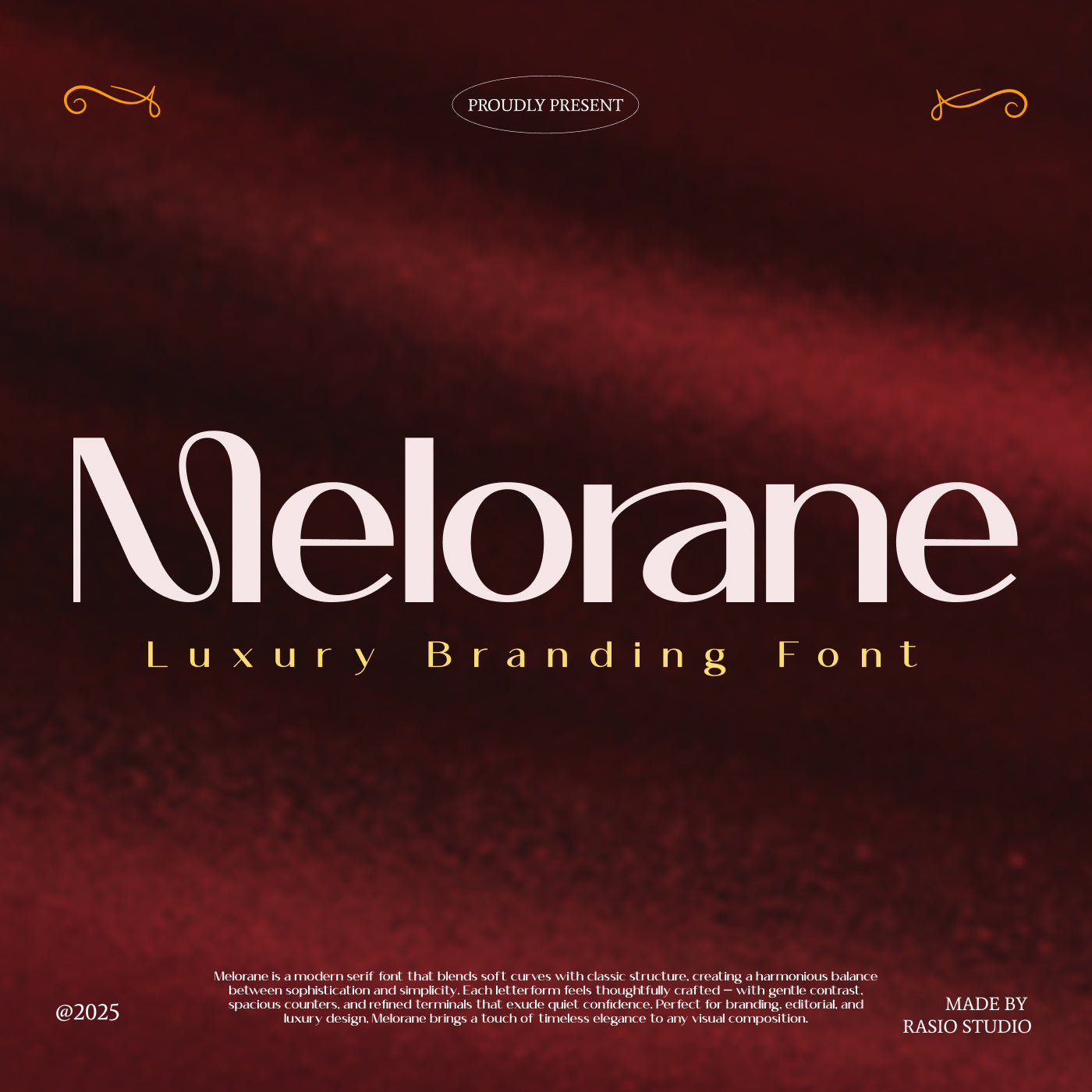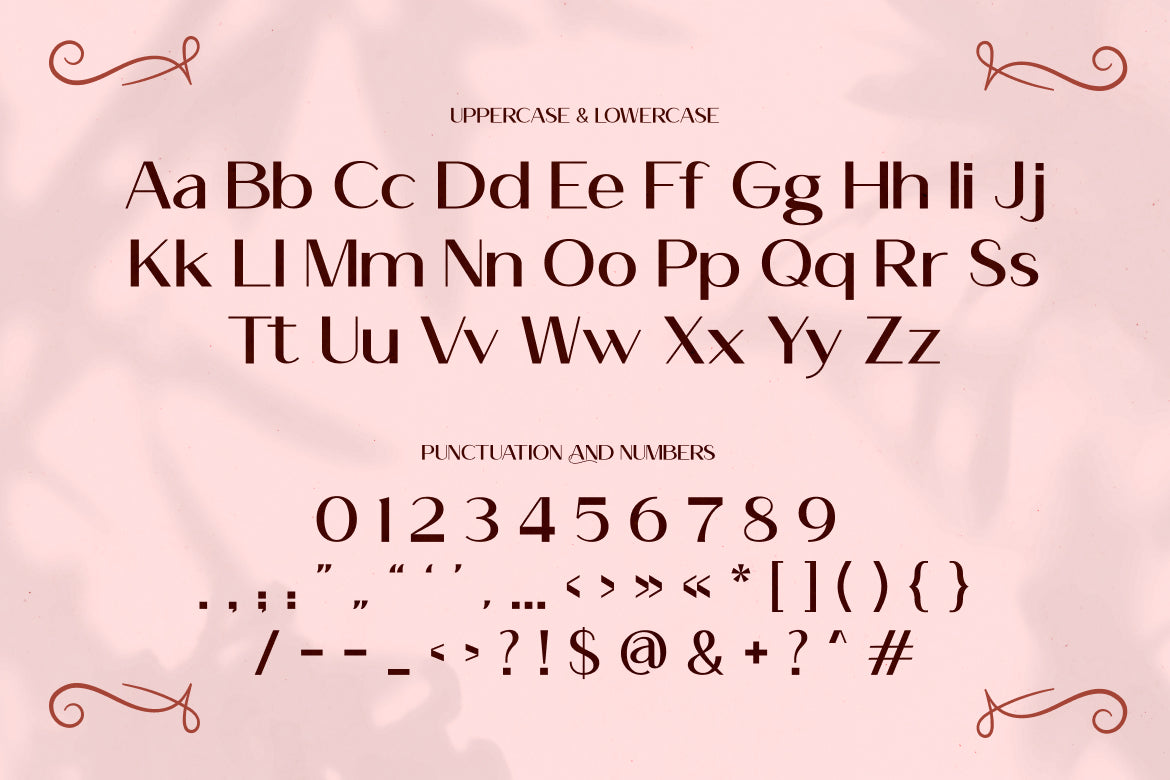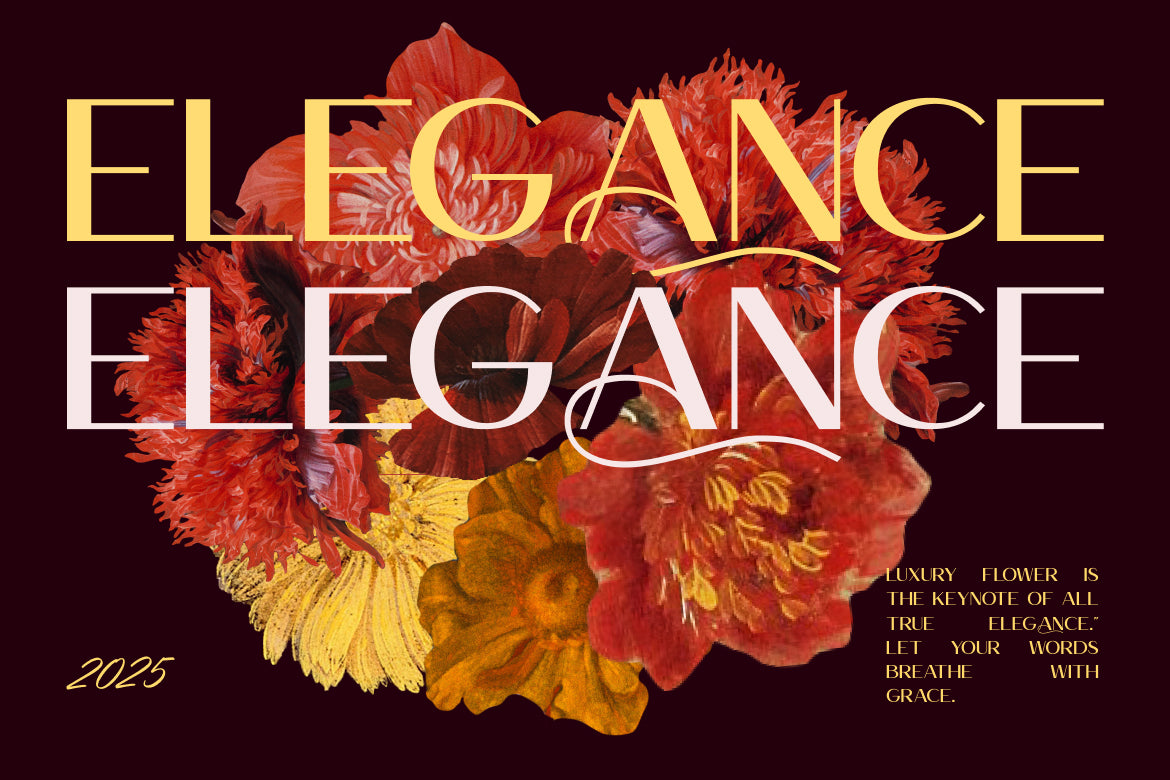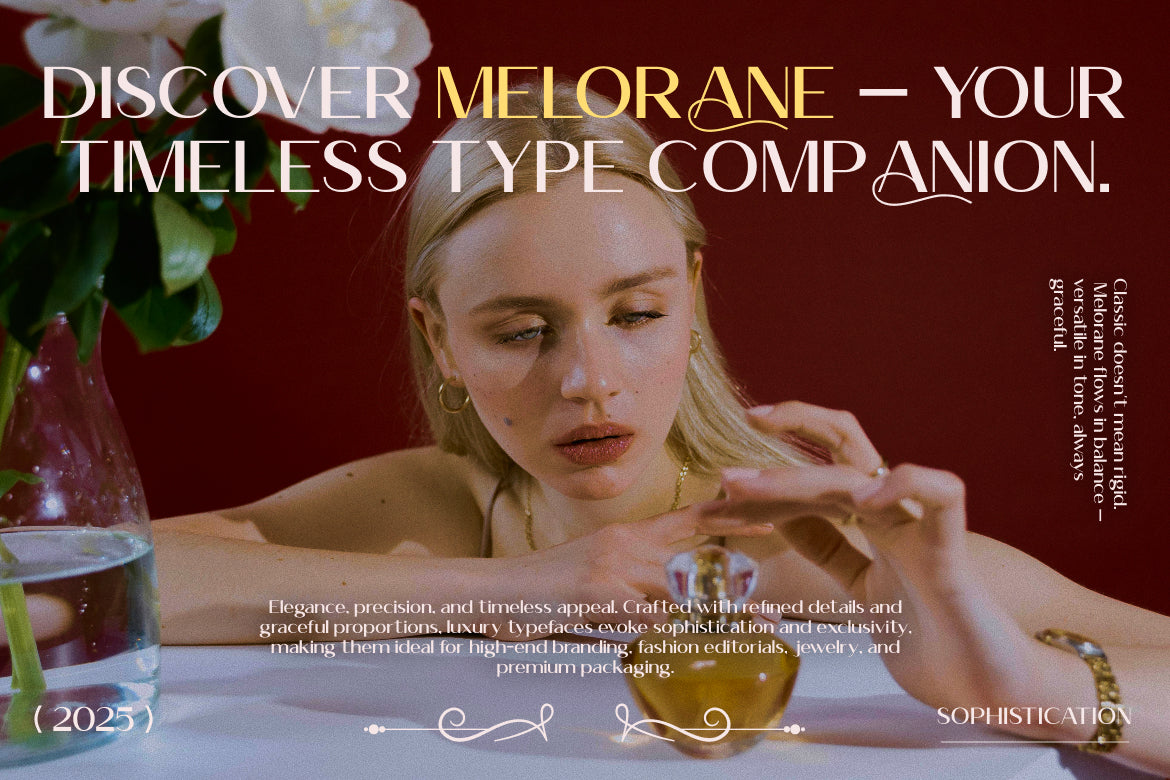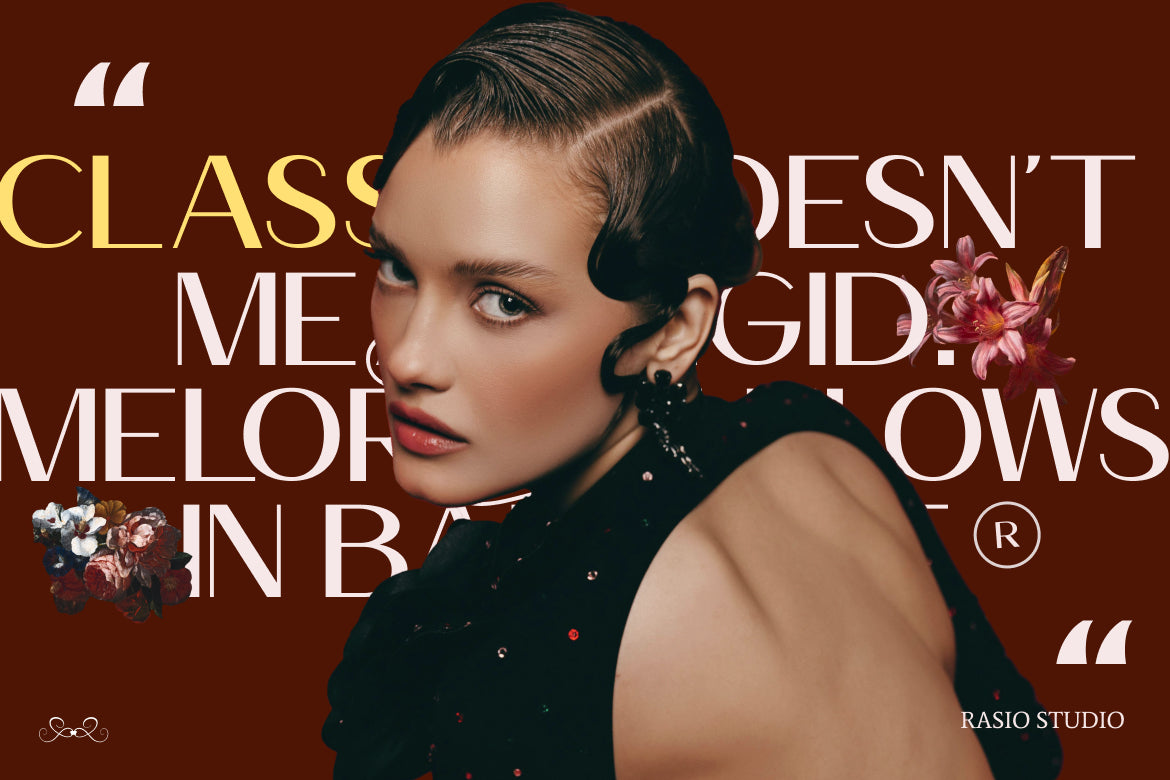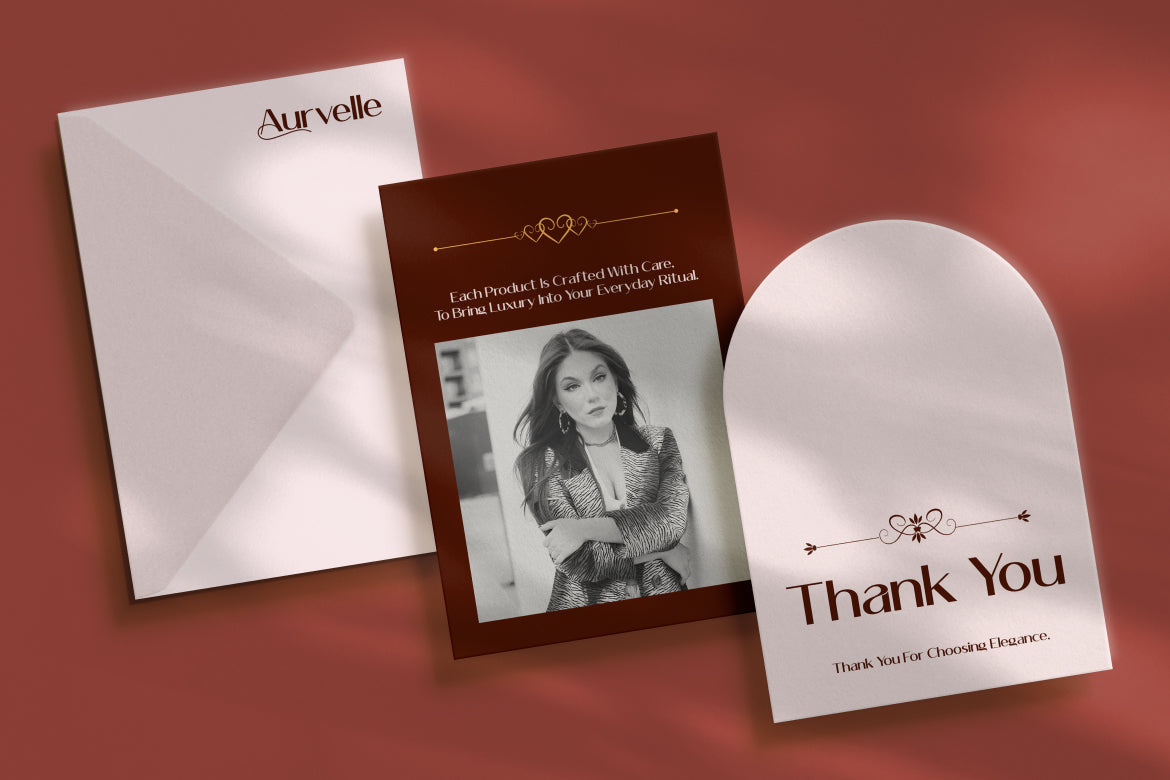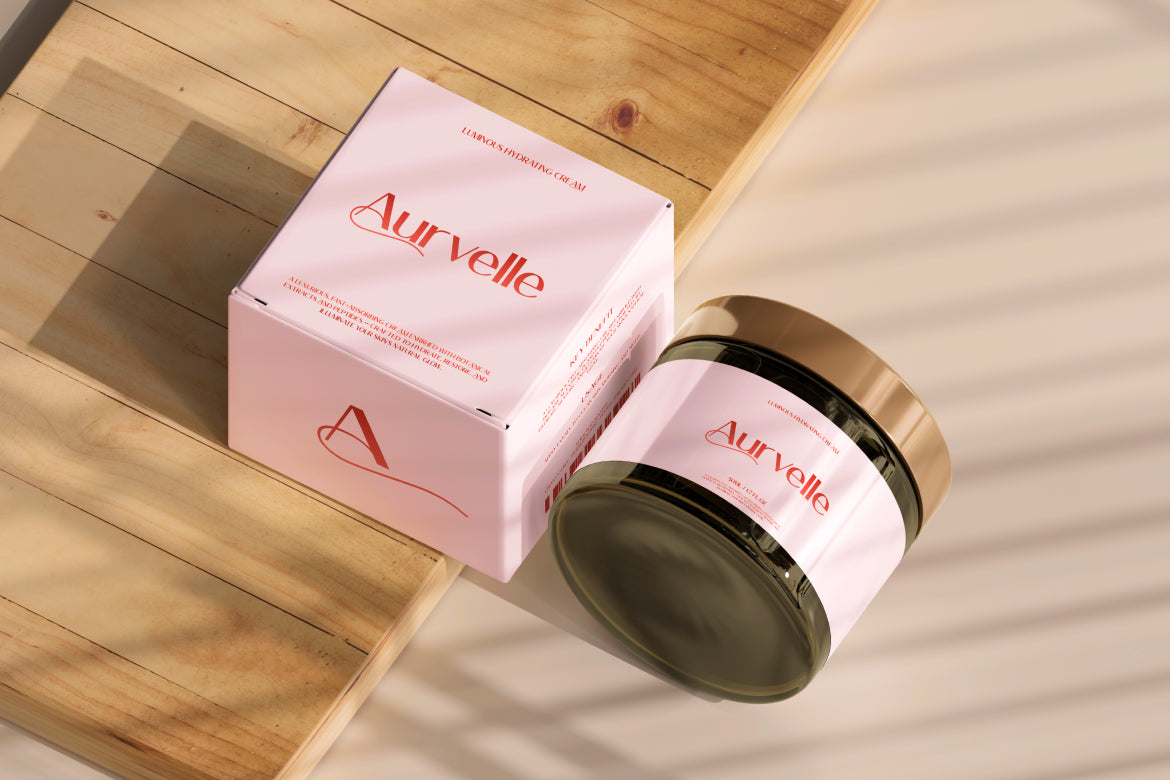
Melorane Luxury Branding Font
Melorane is a luxury sans serif font that merges timeless elegance with modern refinement. Featuring graceful curves, high contrast strokes, and distinctive ligatures, each letterform is designed to exude sophistication and confidence. This typeface blends classic proportions with contemporary flair, making it a perfect choice for high-end branding and editorial design. Ideal for luxury packaging, cosmetic branding, fashion campaigns, and elegant logos, Melorane brings a poetic balance of softness and structure. Its versatility shines in both large display text and refined body copy, offering a premium touch to any visual composition.
Melorane is perfect for elegant serif typography, premium branding, and timeless editorial visuals. It fits perfectly into high-end packaging, luxury skincare branding, fashion magazine layouts, and graceful wedding stationery. Its refined design also suits boutique logos, premium product labels, and signature brand identities. Melorane can be used in beauty campaigns, jewelry promotions, custom thank-you cards, and modern fashion lookbooks. Its delicate ligatures and contemporary elegance make it ideal for projects that demand sophistication, confidence.
Melorane Luxury Branding Font is a sophisticated sans serif typeface that combines timeless elegance with modern design elements. It includes TTF, OTF, and WOFF formats, featuring both uppercase and lowercase letters, numerals, and punctuation, making it suitable for a variety of branding and editorial applications.